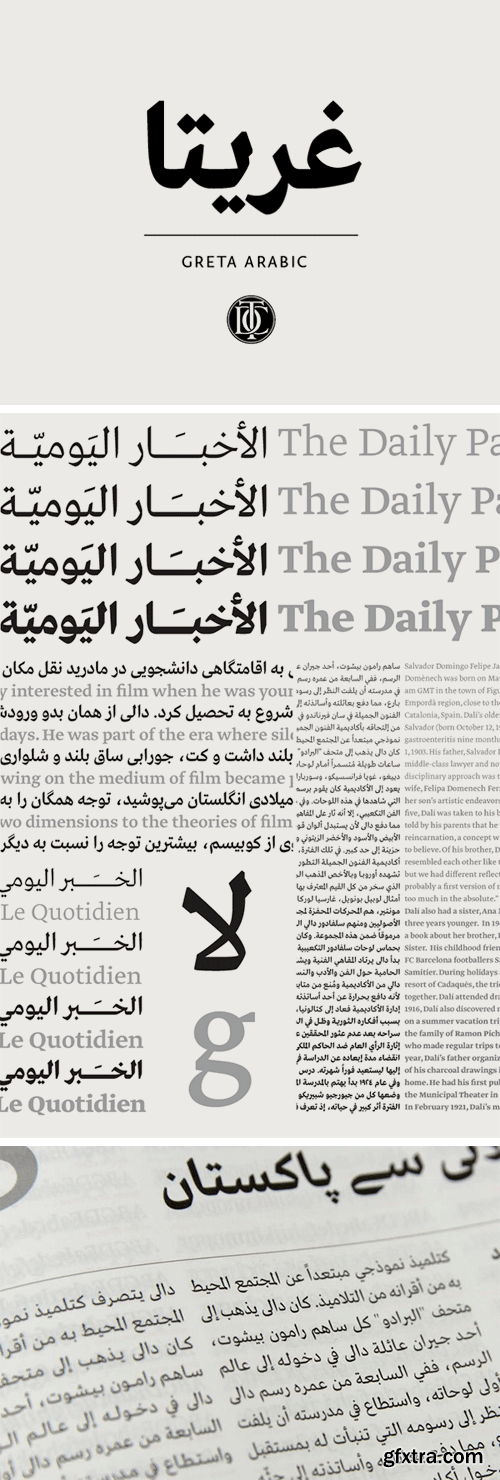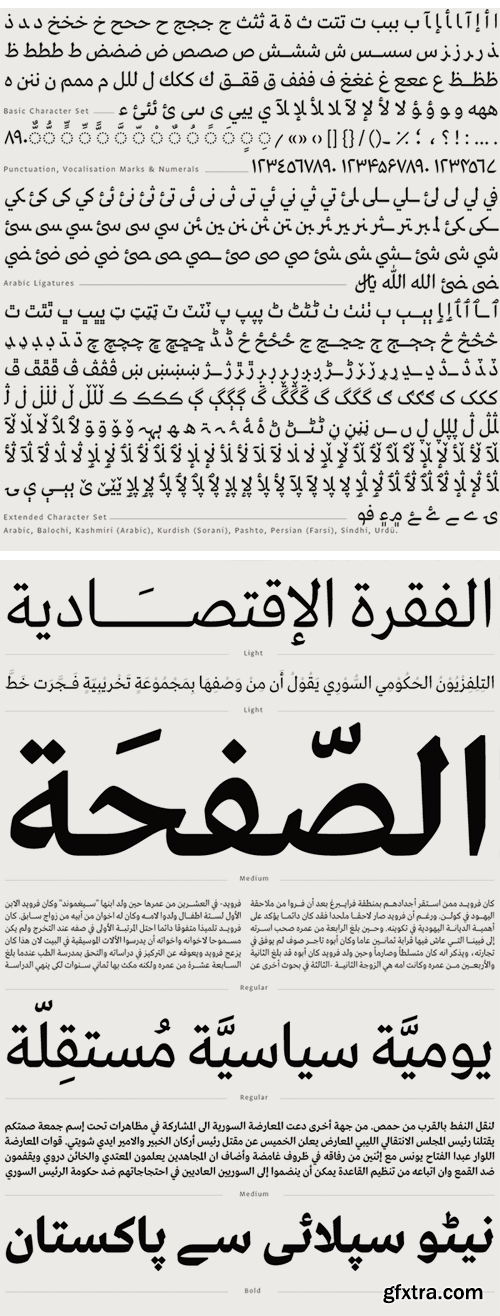
Greta Text Arabic Font Family
- Greta Arabic is a modern Arabic newspaper typeface, carefully sculpted in the spirit of the Naskhi calligraphic style, the most legible and suitable Arabic style for running text. Intended as a companion to Greta Text, it translates the principles of Greta into the Arabic script and writing system. Greta Arabic is sharp and crisp, serious and clear.
It is optimised for newspaper setting thanks to its generous counters, relatively short ascenders and descenders, fairly high stroke contrast and use of shapes familiar to its intended audience. It sits comfortably on the baseline, deftly guiding the eye, and is thus well suited to kashida justification, a vital requirement for newspaper setting. Just like its Latin counterpart, Greta Arabic enjoys a strong character in small sizes, but is also quite useful at display sizes.